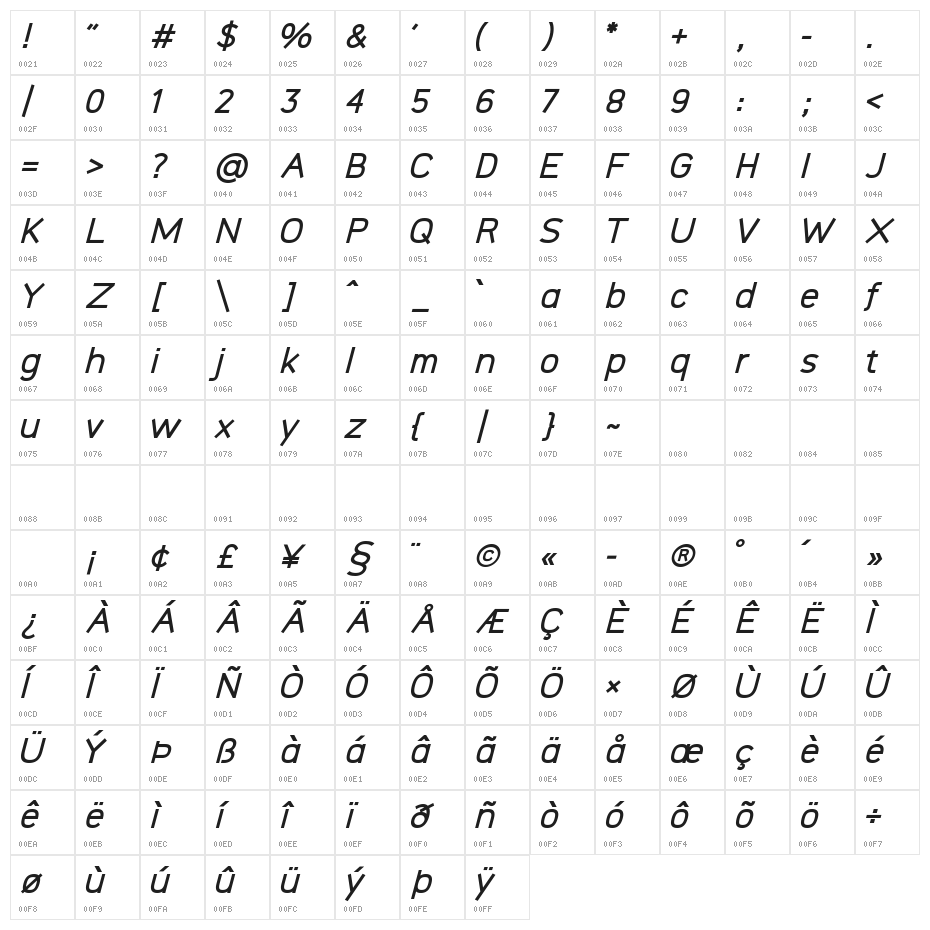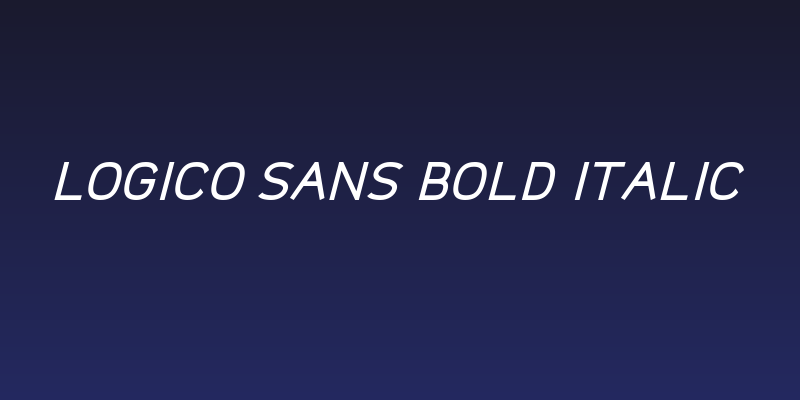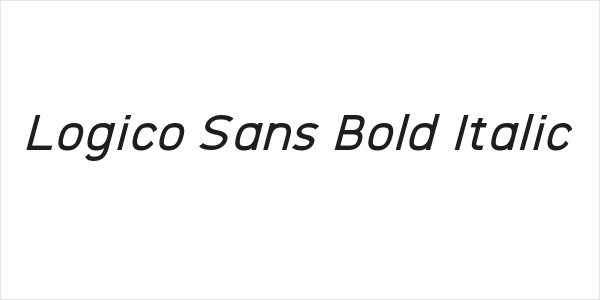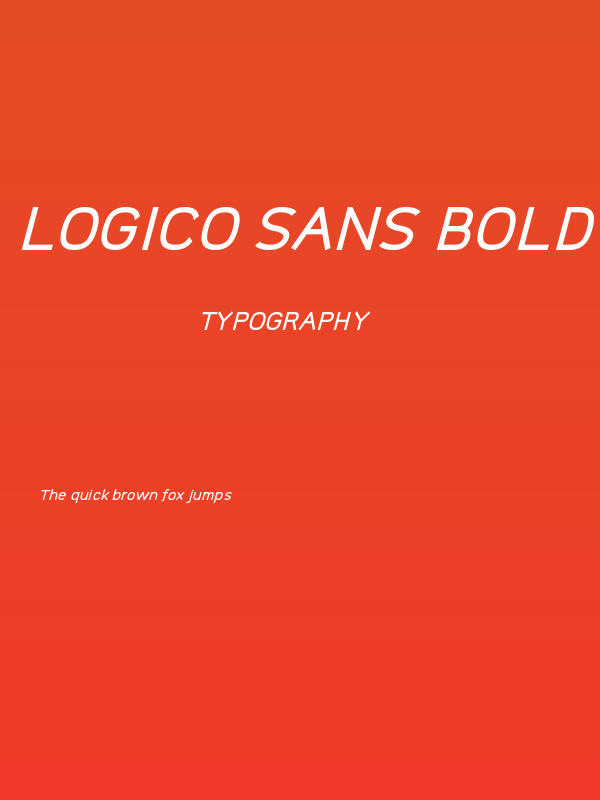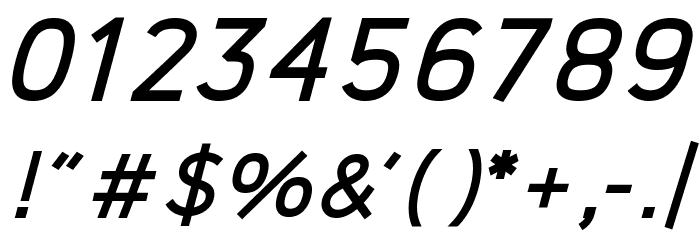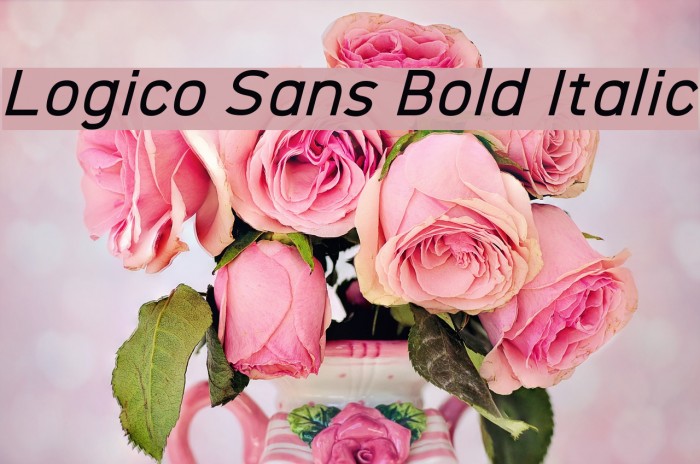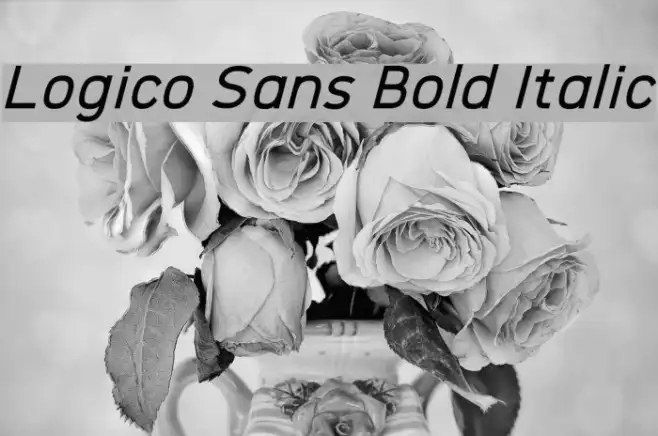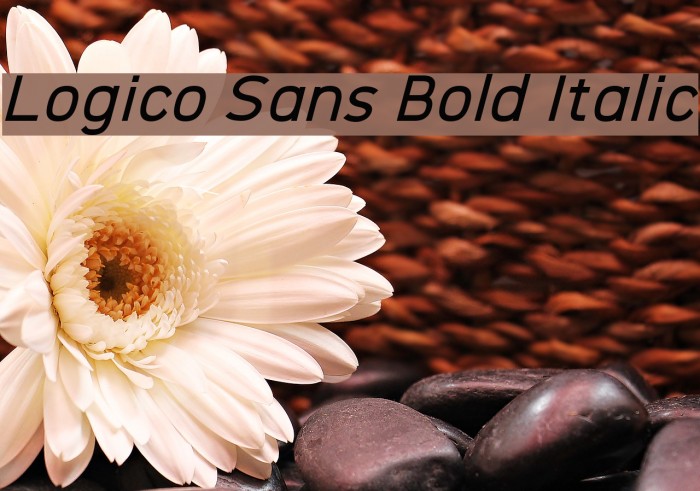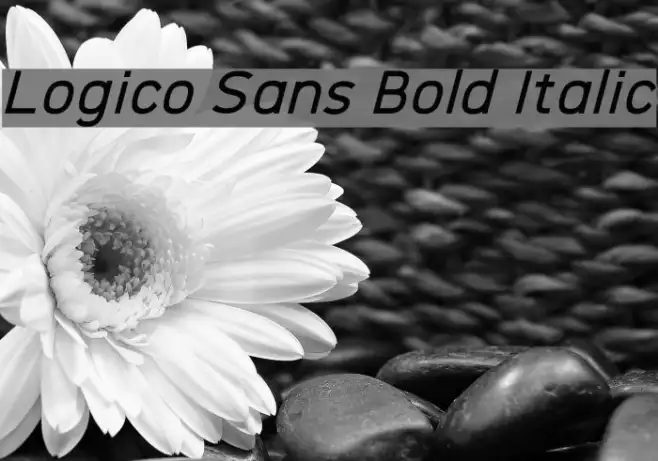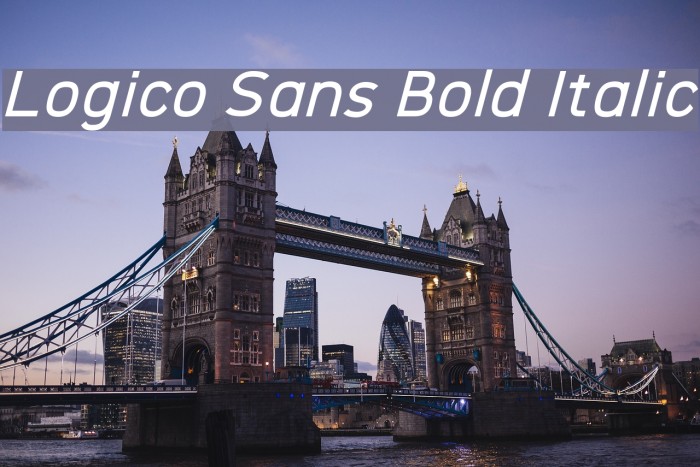
Logico Sans Bold Italic Font
✎ Sans Serif
Logico Sans Bold Italic Description
This font exhibits a modern and sleek design with a sans-serif style, characterized by its bold weight and italicized form. The letters are slightly slanted, giving a dynamic and forward-moving appearance. The strokes are consistent in thickness, providing a uniform look across all characters. The font maintains a clean and professional aesthetic, suitable for various applications. The character spacing is normal, ensuring readability while maintaining a compact form. The numerals and special characters are designed to match the overall style, offering a cohesive look throughout.
| Use Case | Headlines, Logos, Digital content |
| Proposed Projects | Ideal for branding, advertising, headlines, and digital content where a modern and professional look is desired. |